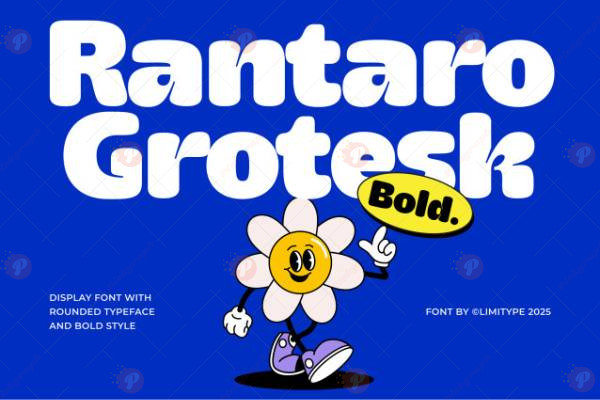
The Rantaro Grotesk Bold Font Free is a modern sans-serif typeface with a strong and clean appearance. Its bold weight makes it highly effective for headlines, posters, logos, banners, social media designs, and branding projects
With its geometric proportions and professional design, this font ensures maximum readability and visual impact, both in print and digital media. Designers will find it perfect for creating minimal, modern, and powerful typography layouts.
Typeface: Sans Serif / Grotesk
Style: Bold / Modern / Clean / Minimal